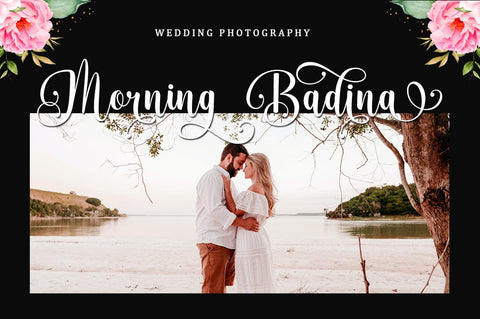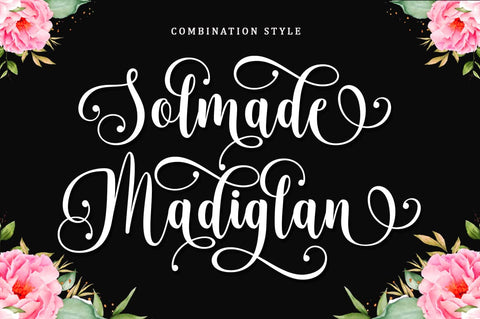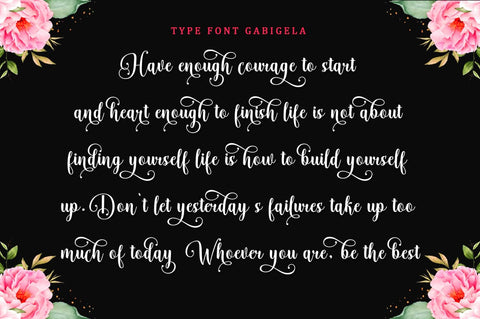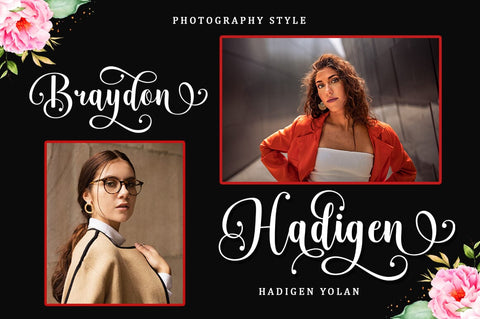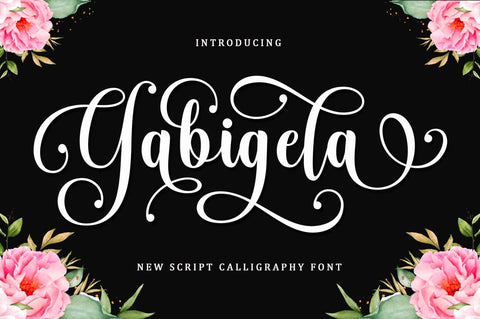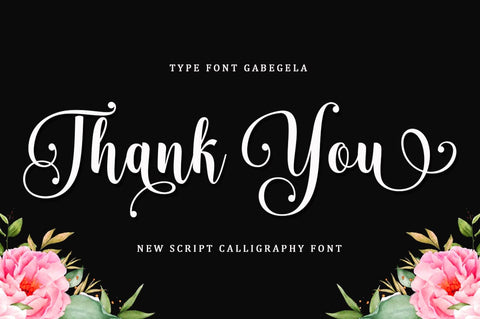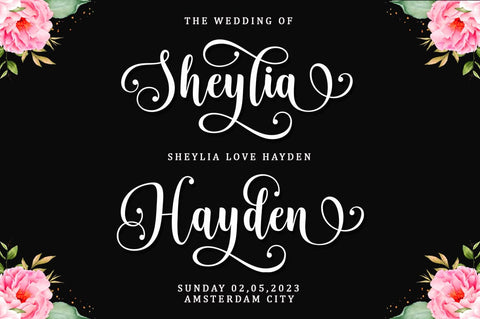
Gabigela Script Font
Gabigela is a very cute, elegant and unique handwritten font. Expertly designed to become a true favorite, this font has the potential to take your creative ideas to the highest level!
Gabigela is attractive because it is sleek, clean, feminine, sensual, glamorous, simple, and highly readable, thanks to its many luxurious letter connections. I also offer a number of viable alternative styles for all letters. Classic style is very suitable to be applied in various formal forms such as invitations, labels, restaurant menus, logos, fashion, make up, stationery, novels, magazines, books, greeting cards/weddings, packaging, labels or all kinds of advertisements. for your purposes. . . . . . .
2 types of fonts: regular, slant
Contains full set:
-Uppercase
-Lowercase
-Alternative
- Ligature
- Punctuation
-Number
- Multilingual support.